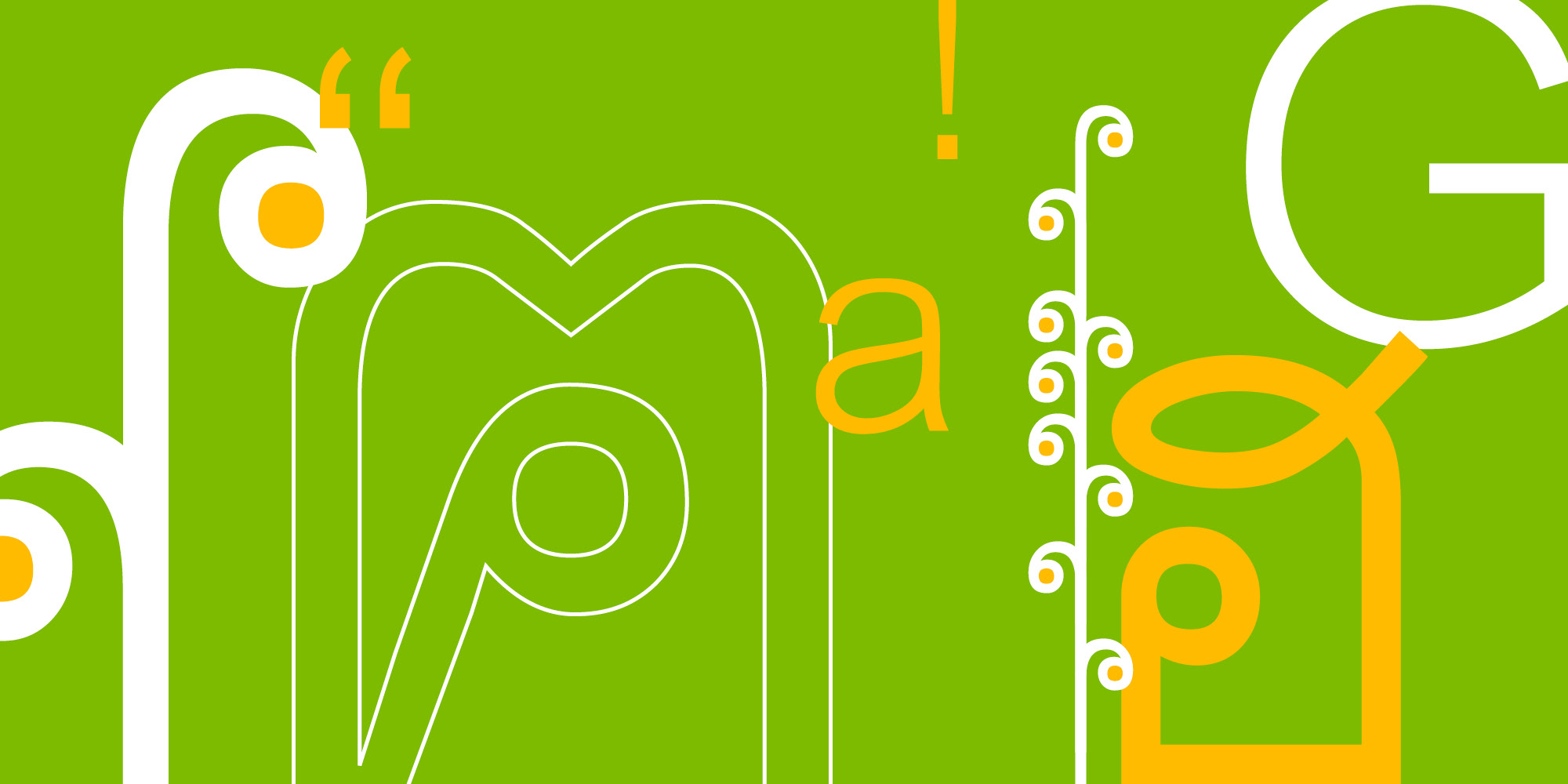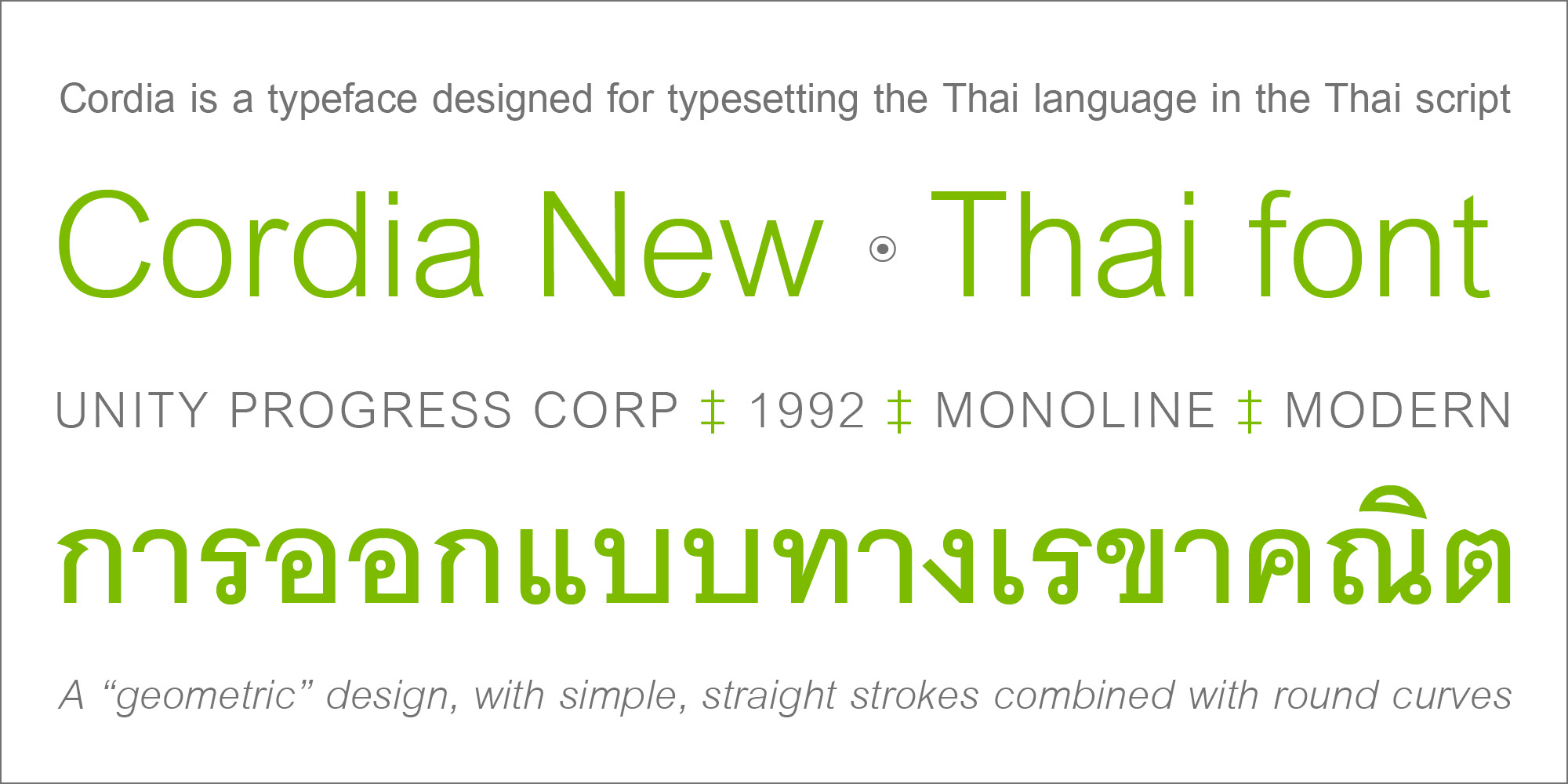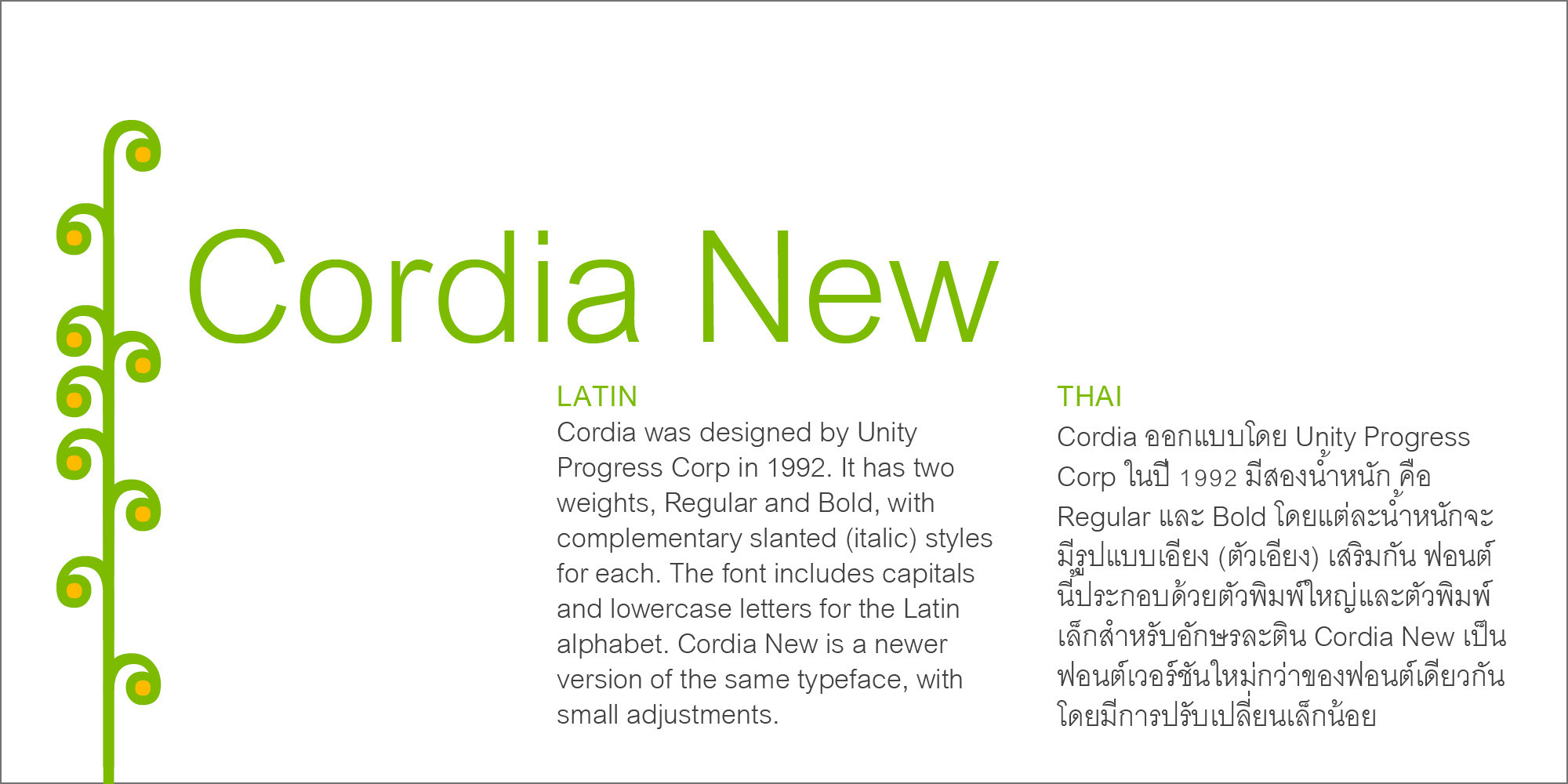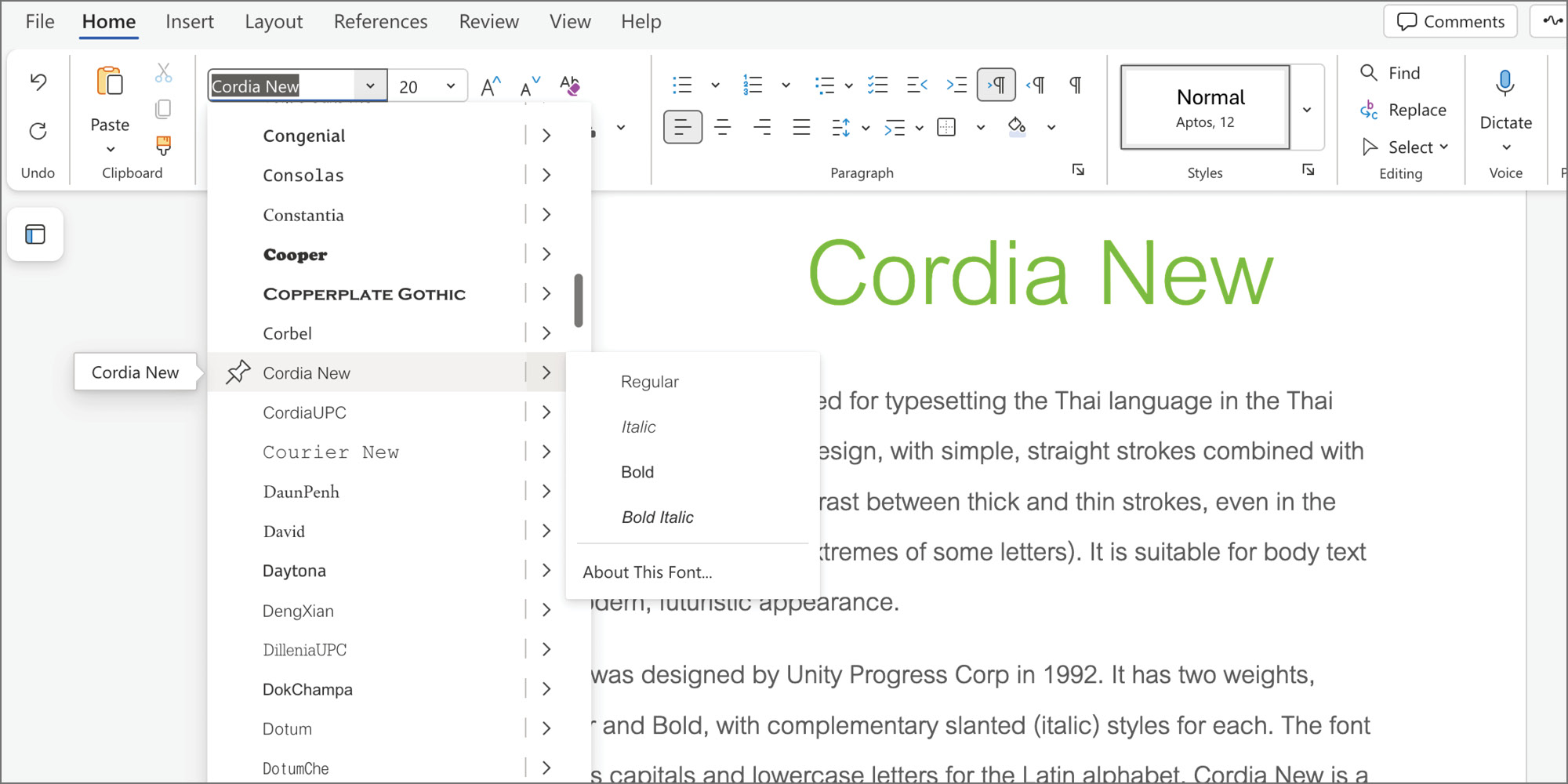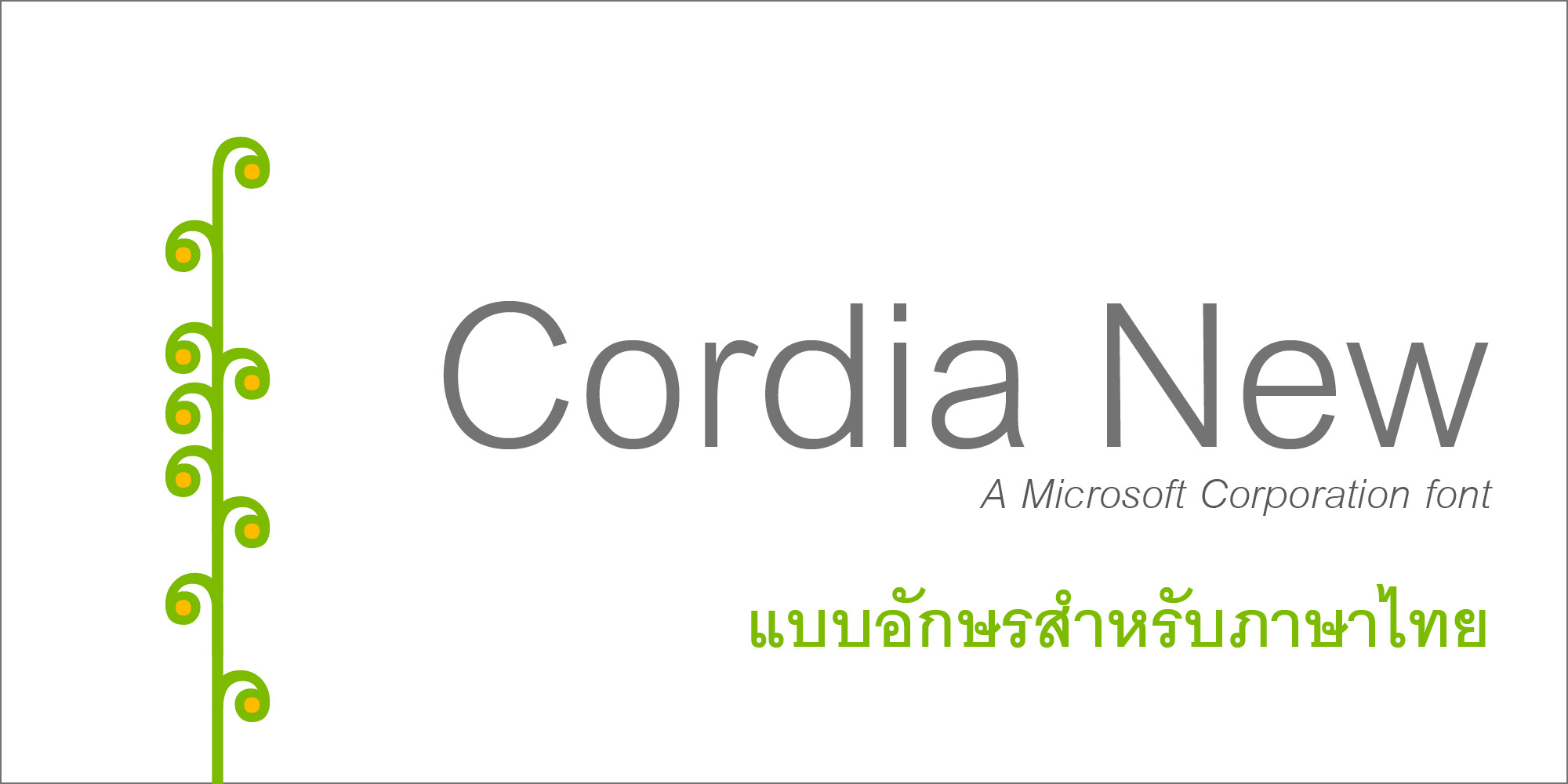
Cordia is a typeface designed for typesetting the Thai language in the Thai script. It is an “geometric” design, with simple, straight strokes combined with round curves. It has no contrast between thick and thin strokes, even in the loops (small circles at the extremes of some letters). It is suitable for body text with modern, futuristic appearance.
Cordia was designed by Unity Progress Corp in 1992. It has two weights, Regular and Bold, with complementary slanted (italic) styles for each. The font includes capitals and lowercase letters for the Latin alphabet. Cordia New is a newer version of the same typeface, with small adjustments.